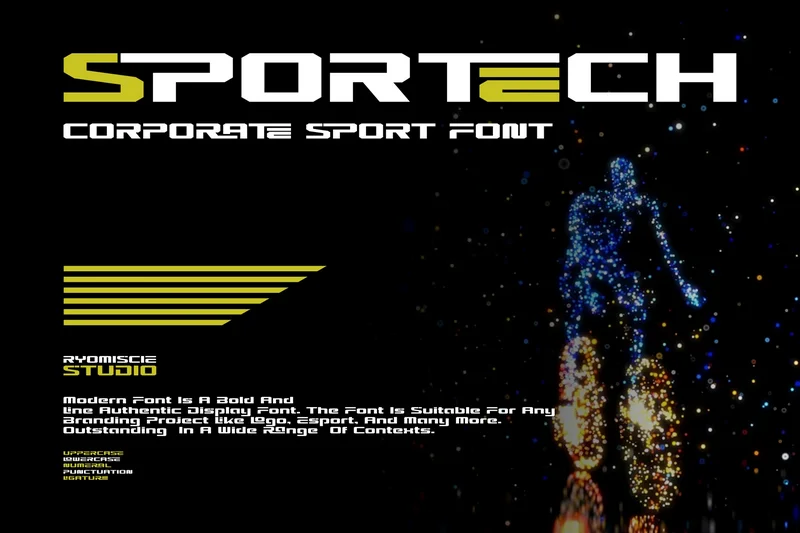
Sportech – Corporate Sport Font
Introducing our new product Sportech Font – Modern Font
Sportech Font- Modern Font is a bold and authentic display font. The font is suitable for any branding project like logo, esport, and many more. outstanding in a wide range of contexts.